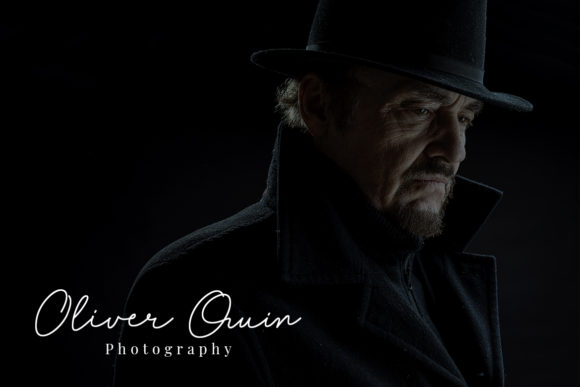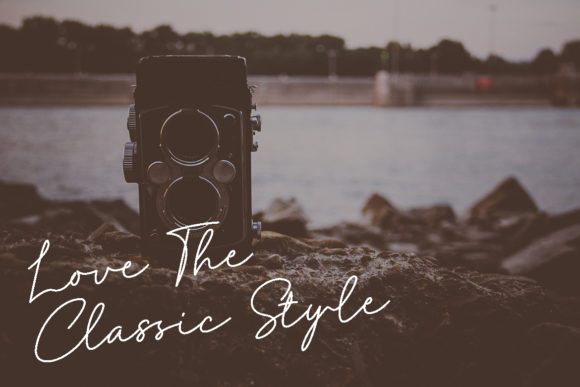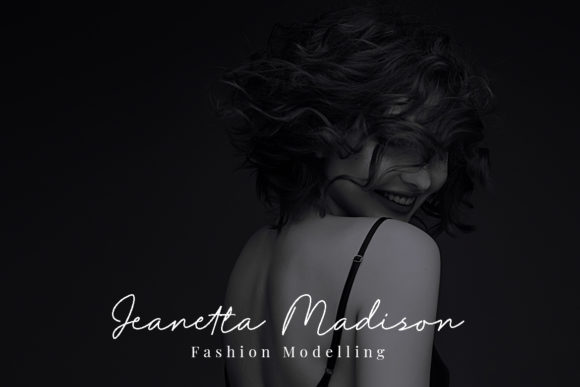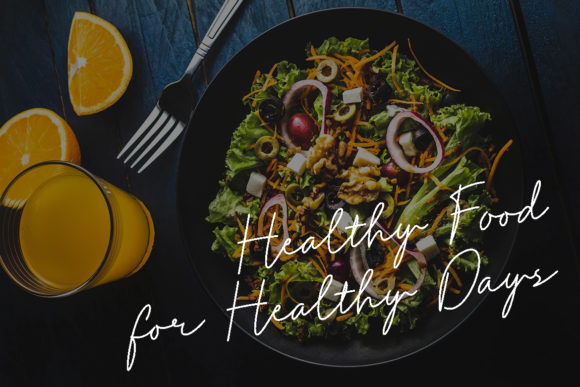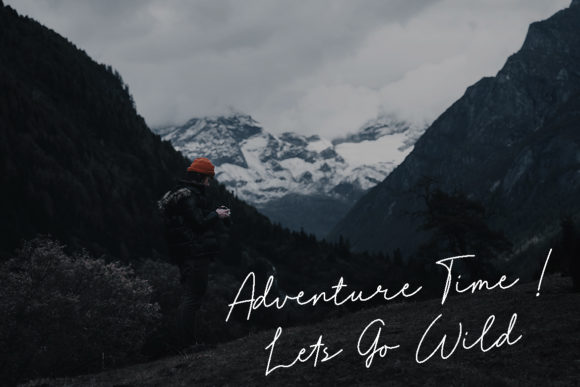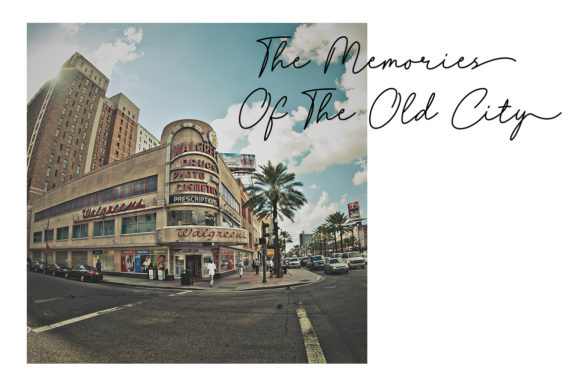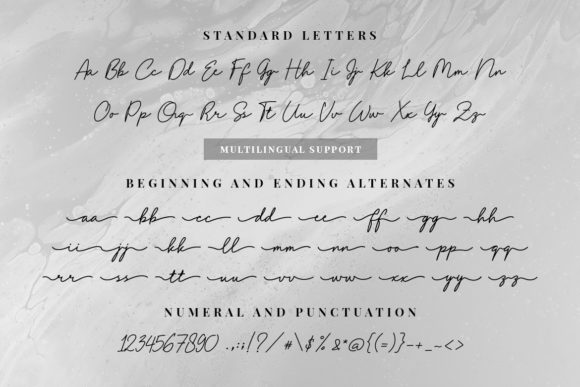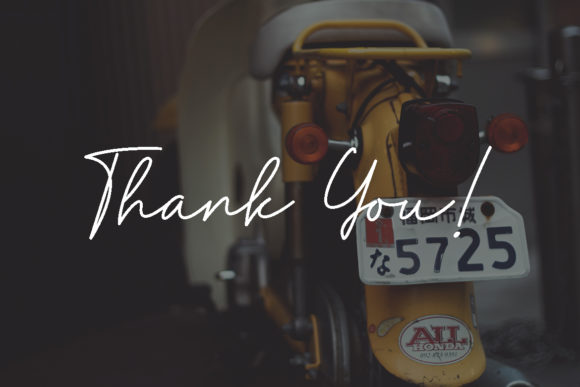
HomeScript FontsWesthamp Font Script Fonts Westhamp Font FacebookXPinterestWhatsApp Westhamp Font Poster 2 Westhamp Font Poster 3 Westhamp Font Poster 4 Westhamp Font Poster 5 Westhamp Font Poster 6 Westhamp Font Poster 7 Westhamp Font Poster 8 Westhamp Font Poster 9 About Westhamp Font Westhamp is a stunning script, perfect for adding that sophisticated feel to your next design idea! DOWNLOAD ON CREATIVE FABRICAThis font is sold and delivered by Creative Fabrica. Font Canyon may earn a commission if you buy through this link. People also explored Shella Font Dear Santa Font Mansdefia Font Onyx Font Baby Font Korka Font Marriela Font Malique Font Cold Outside Font 521 0 TagsWesthamp Font Previous articleCabello FontNext articleMenthol Font LEAVE A REPLY Cancel reply Comment: Please enter your comment! Name:* Please enter your name here Email:* You have entered an incorrect email address! Please enter your email address here Website: Save my name, email, and website in this browser for the next time I comment. Personal Use Free Andolas Personal Use Free Read more about this font Bosque Font Personal Use Free Read more about this font Playground Clip Art Personal Use Free Read more about this font Miracles Personal Use Free Read more about this font BLOG To increase your work productivity, choose the most readable fonts. In today's fast-paced work environment, where digital communication and information consumption are integral to our daily routines, the choice of fonts can significantly impact... The 10 Best Handwriting Fonts to Add Personality to Your Designs Exploring Font Trends Elegant Wedding Invitation Fonts – Handwritten & Script Fonts